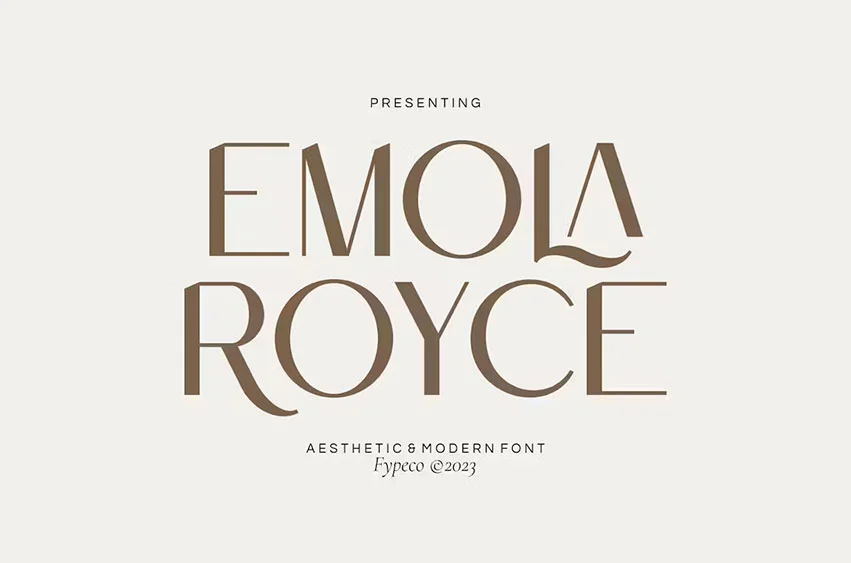
Emola Royce Font is an aesthetic & modern sans serif with simple, clean, and visual elegance. Specially designed for elegant-themed projects, perfectly suitable for creating simple, clean, lifestyle designs such as logos, title, and magazine and more.